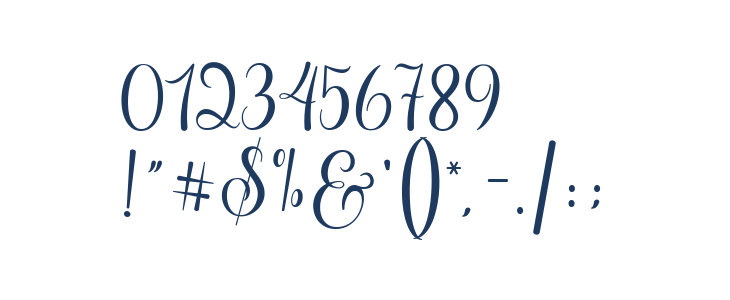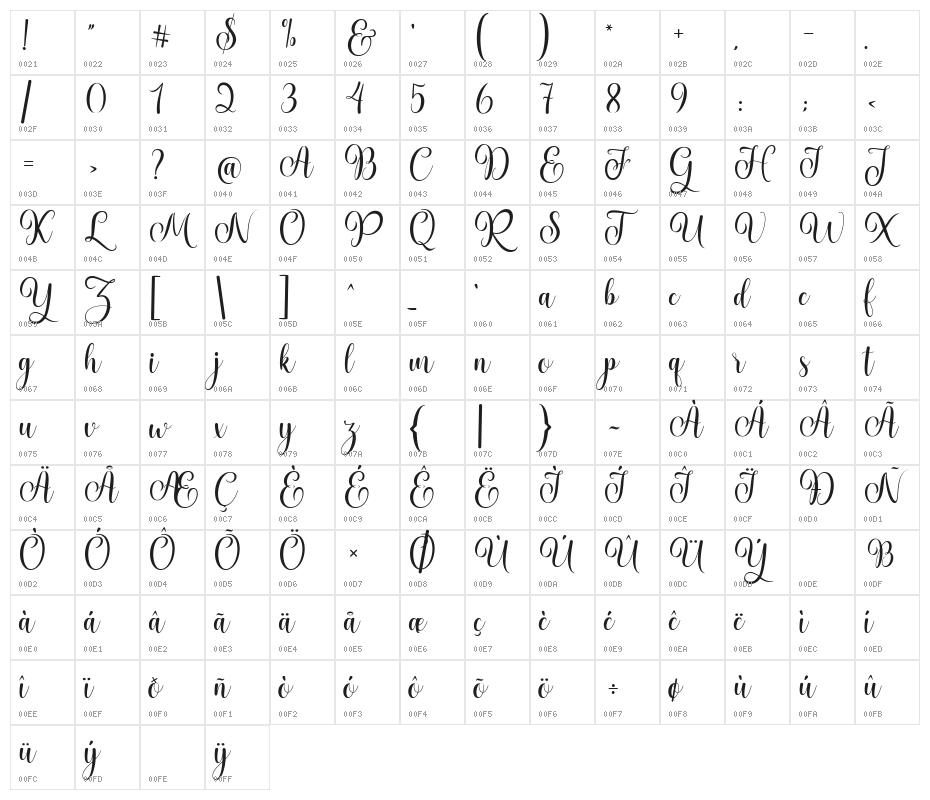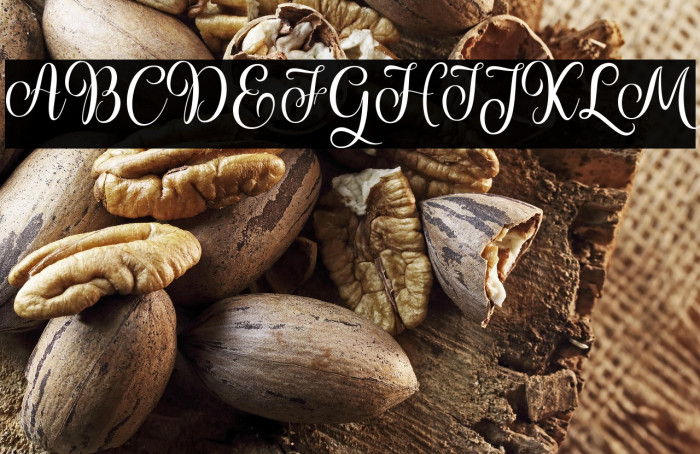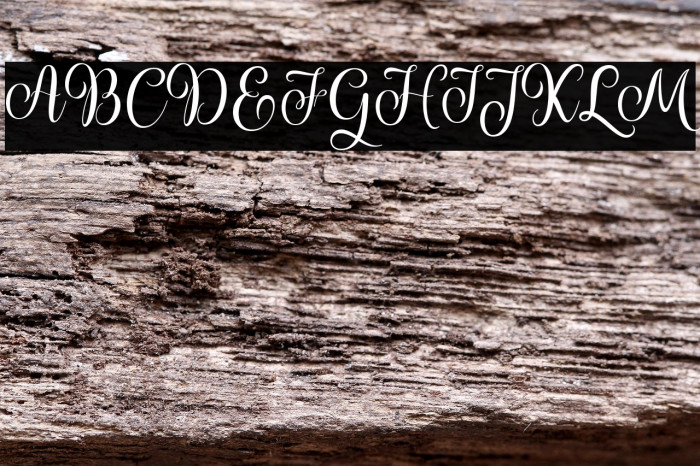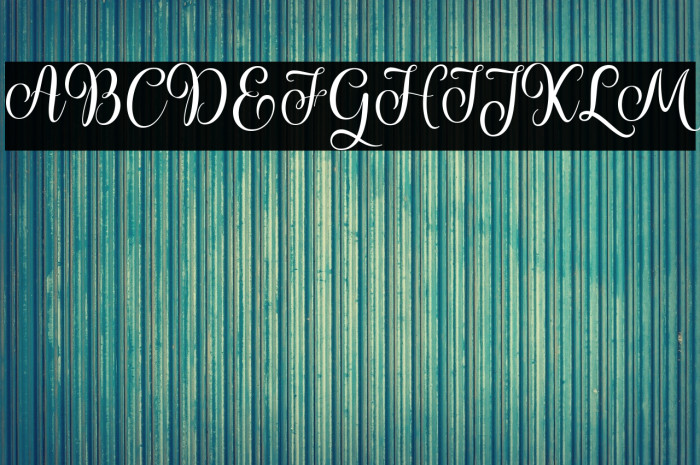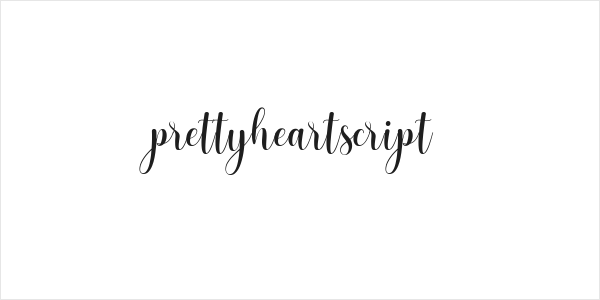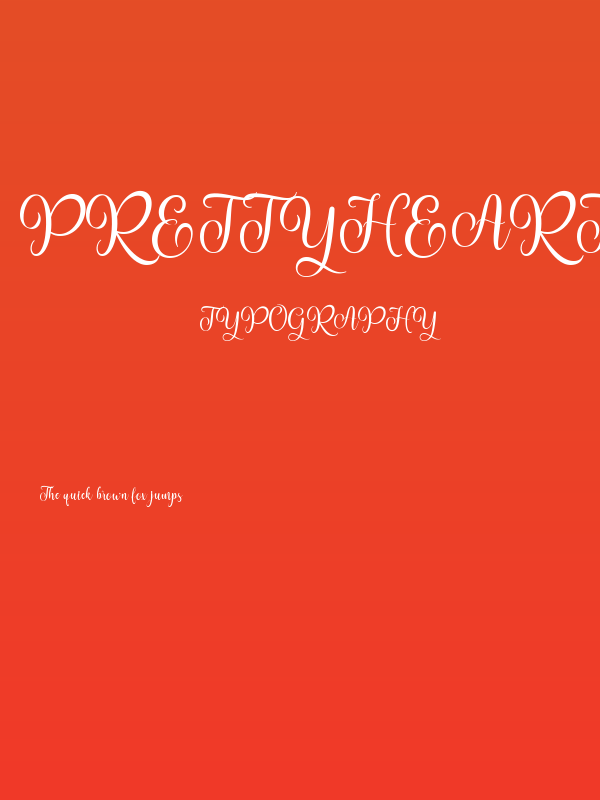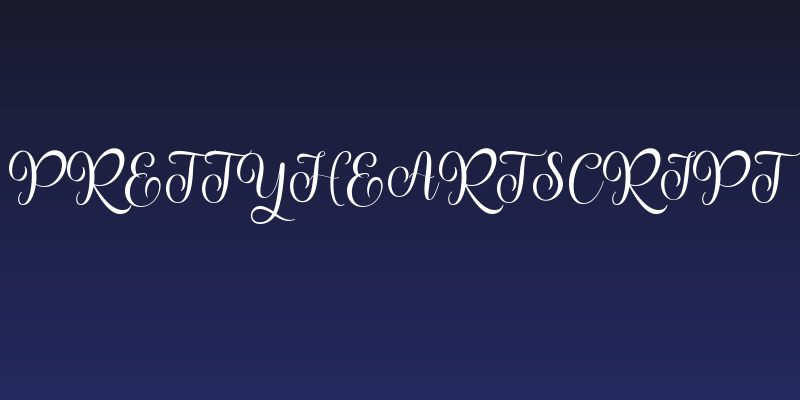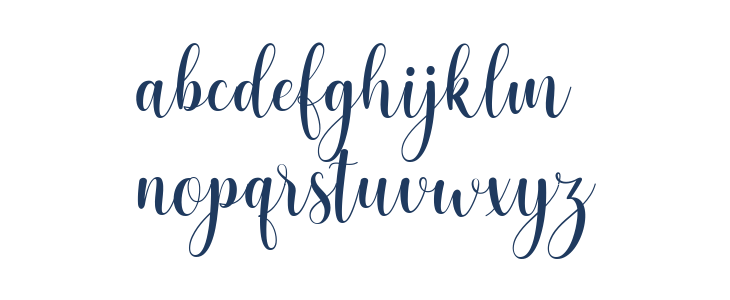
prettyheartscript Font
prettyheartscript Description
This elegant script font features flowing, cursive letters with a graceful and sophisticated style. The uppercase letters are ornate, with intricate loops and flourishes that add a touch of romance and charm. The lowercase letters maintain a consistent flow, with smooth connections between each character, making it ideal for creating a seamless, handwritten look. The numerals are stylish and complement the overall aesthetic, while the special characters are thoughtfully designed to match the font's elegant theme. This font exudes a sense of luxury and refinement, perfect for projects that require a touch of elegance.
| Use Case | Logos, Invitations, Greeting Cards |
| Proposed Projects | Ideal for wedding invitations, greeting cards, branding, and elegant packaging. |